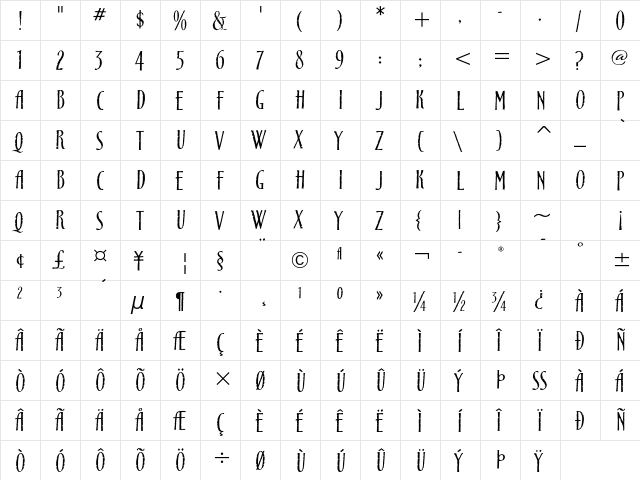
Cancione ITC Std Regular
| Designer | Brenda Walton |
Design Context for Cancione ITC Std Typeface
Cancione ITC Std is a composed and adaptable typeface that performs quietly and consistently across a wide range of design contexts.